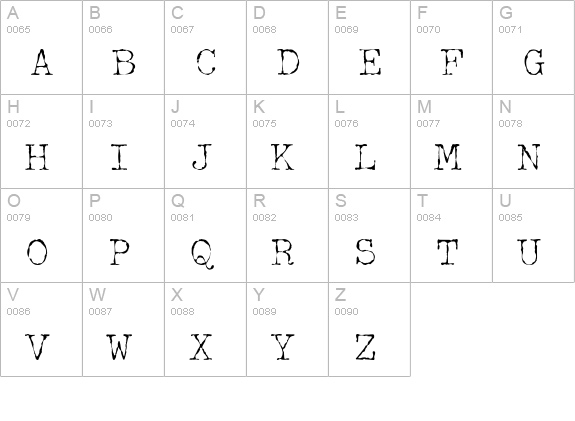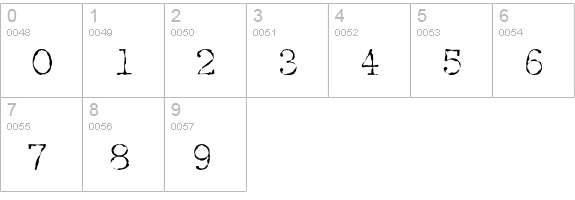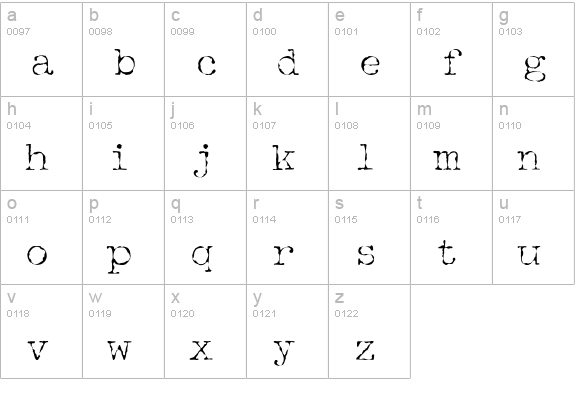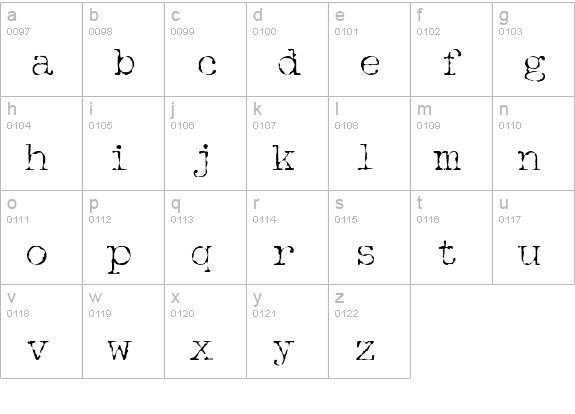
McGarey-Fractur Font Details
The McGarey-Fractur font is a uniquely designed typeface that exudes elegance and sophistication. With its intricate details and vintage charm, this font adds a touch of old-world beauty to any project. The McGarey-Fractur font is perfect for creating stylish invitations, greeting cards, or anything that requires a touch of class. What's even better is that the McGarey-Fractur font is completely free to download at FontsMarket.com. This means you can easily add this stunning font to your collection without any cost. Don't miss out on the opportunity to enhance your designs with the timeless beauty of the McGarey-Fractur font, available for free download now at FontsMarket.com.